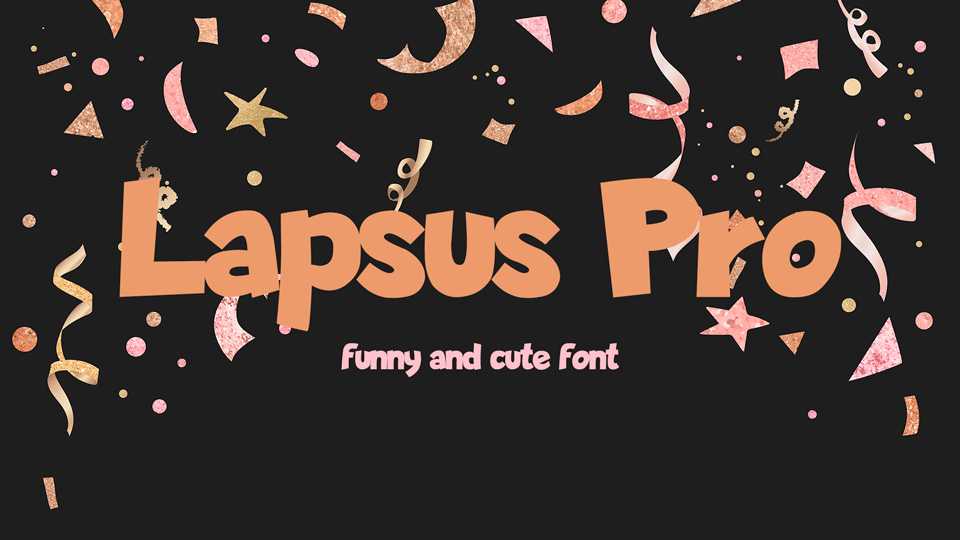
Download Lapsus Pro font, a bold funny and friendly typeface. Lapsus Pro fits great for kids products, posters, books, games, t-shirts, crafts and more.